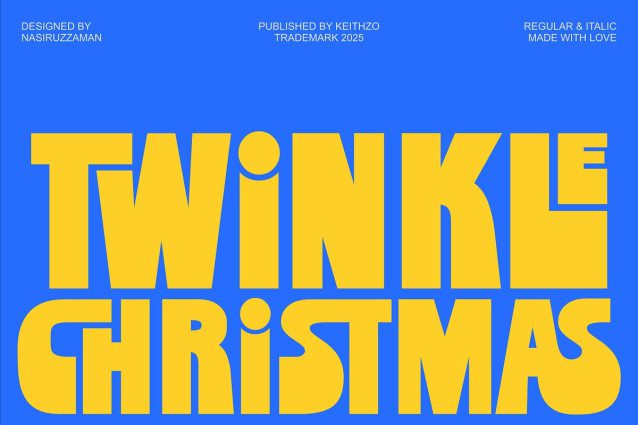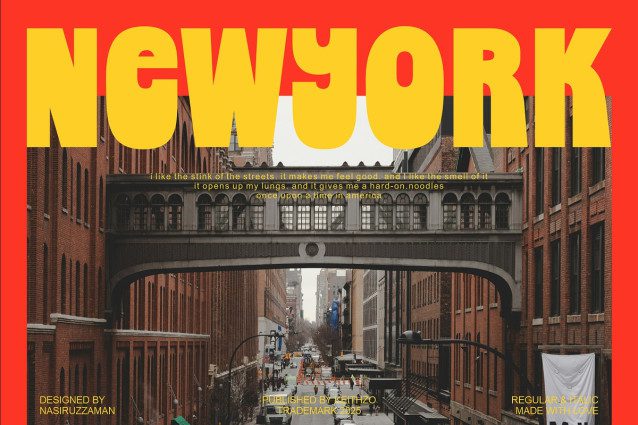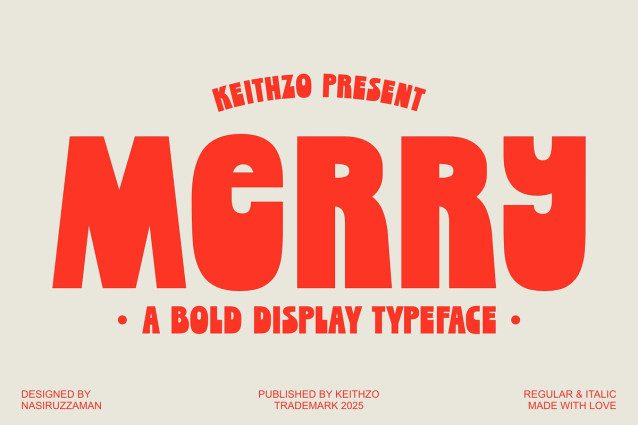
Merry Free Display Font
Merry Free Display Font a daring and vivacious display font meticulously designed to capture attention and breathe life into your messages with a punch of vitality. The robust, amiable contours paired with distinctive proportions bring about an air of cheeriness, whimsicality and a renewed twist of retro charm. Ideated specifically for eye-catching titles, impactful headlines, and designs yearning for bold visual prominence, Merry’s sturdy form ensures it shines against any backdrop.
Its oversized, rounded shapes add a dash of warmth and friendliness making this typeface an ideal fit for festive themes, culinary contexts, kiddie matters, or high-spirited branding. As a bonus, Merry comes in both Regular and Italic styles, pacing the way for dynamic and varied renditions in your designs.
Perfectly suited for projects including: refreshingly unique branding and logos, engaging posters, intriguing flyers, and stand-out product packaging. It’s also a great pinch-hitter for designing merchandise, t-shirts, holiday-themed promotional materials, and magazine or editorial headline-making.